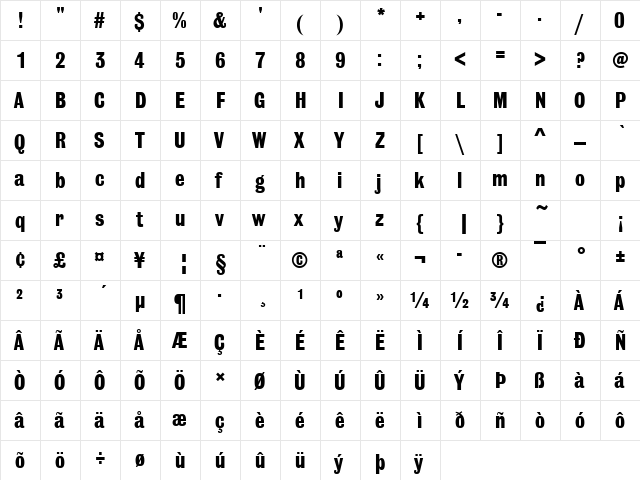
Grotesque Becker Regular
Design Context for Grotesque Becker Typeface
Grotesque Becker offers clean, dependable letterforms without strong stylistic allegiance, making it a practical choice for designers who need flexibility.
Pro Tip: Use Grotesque Becker in both headline and body roles to test its range before committing to a single application.